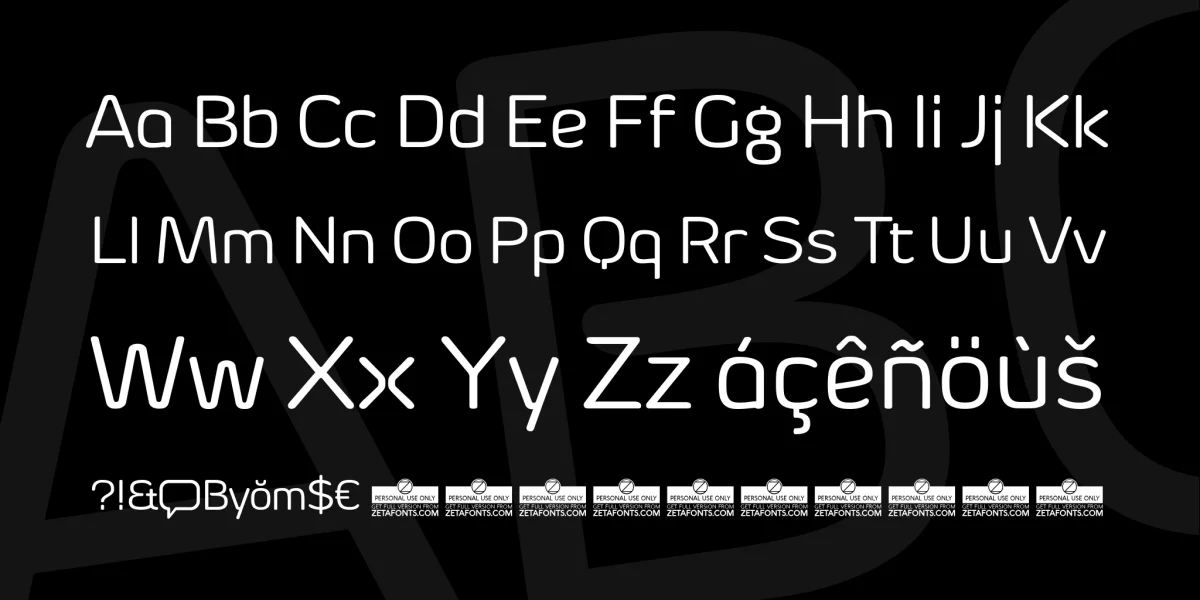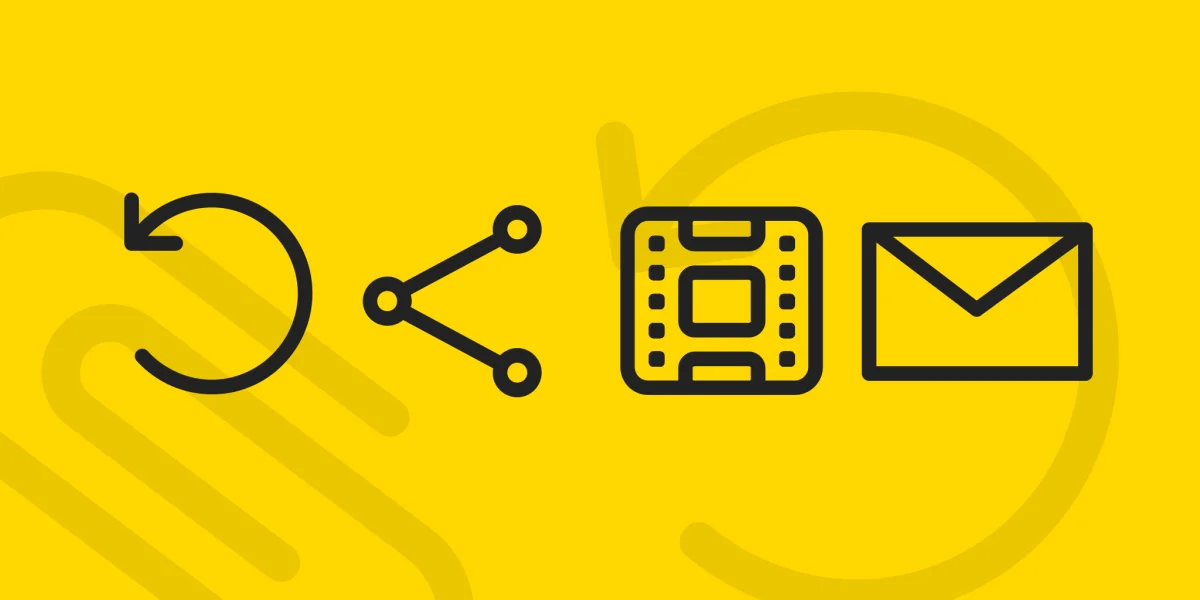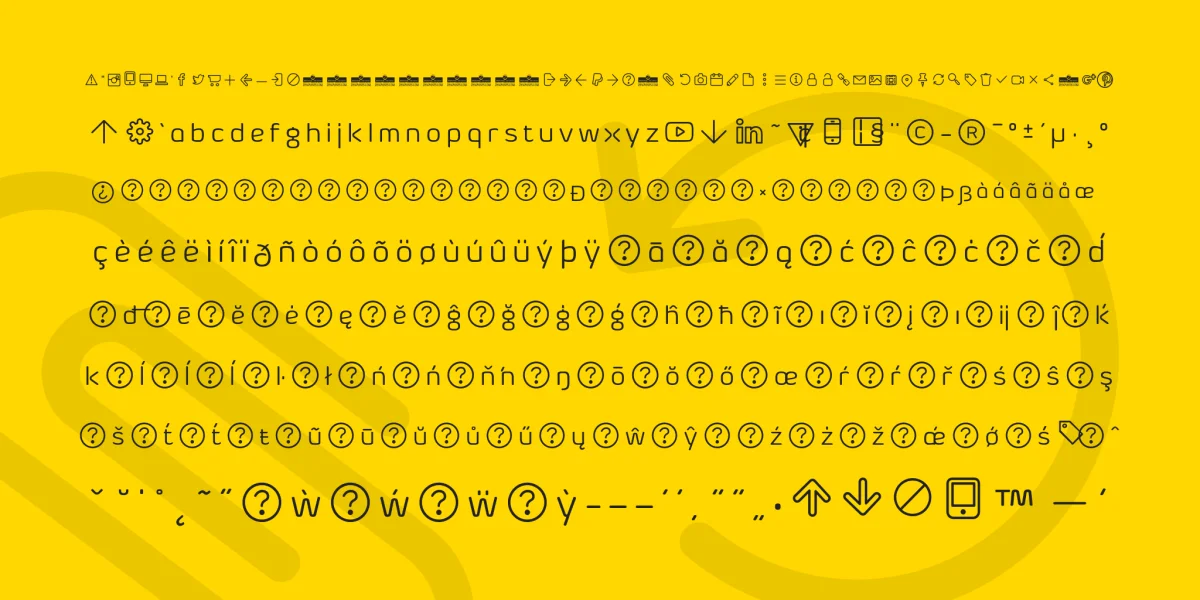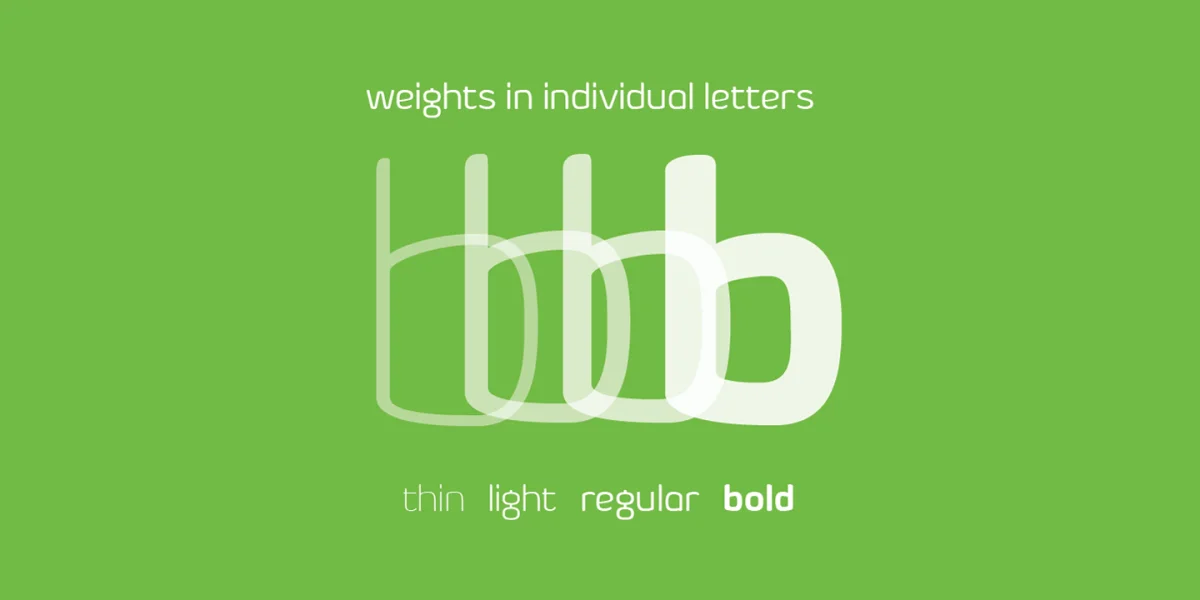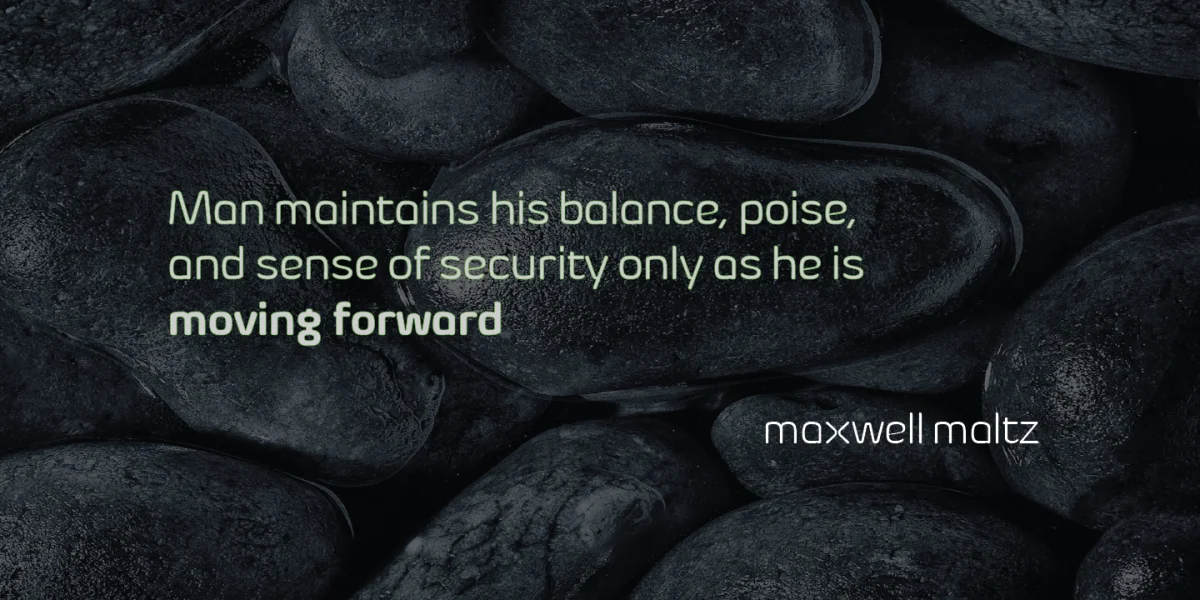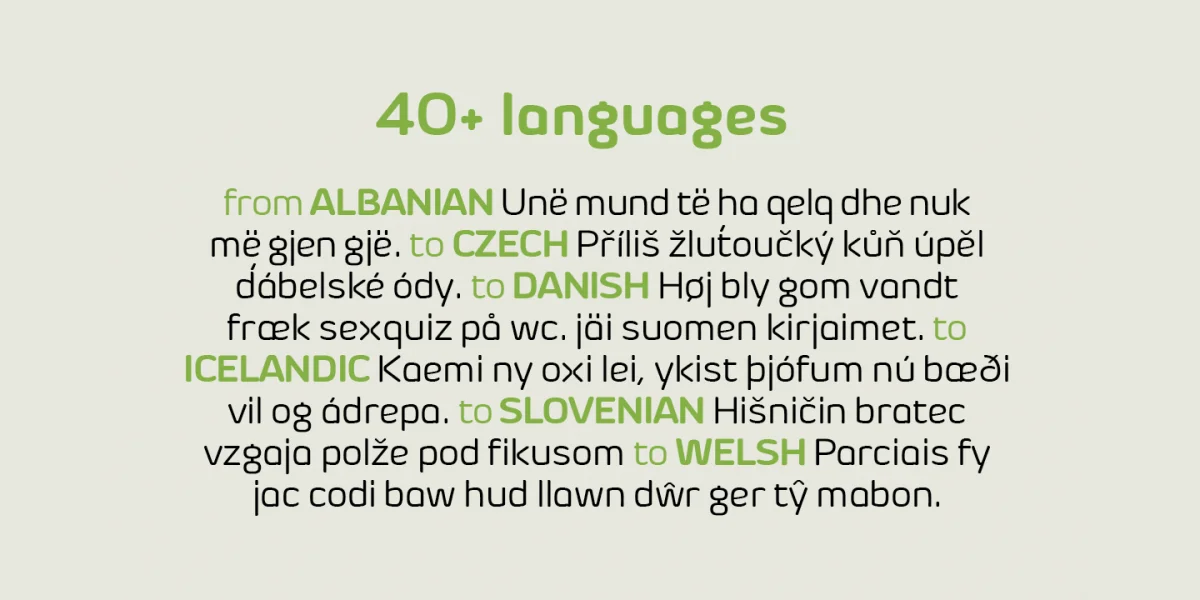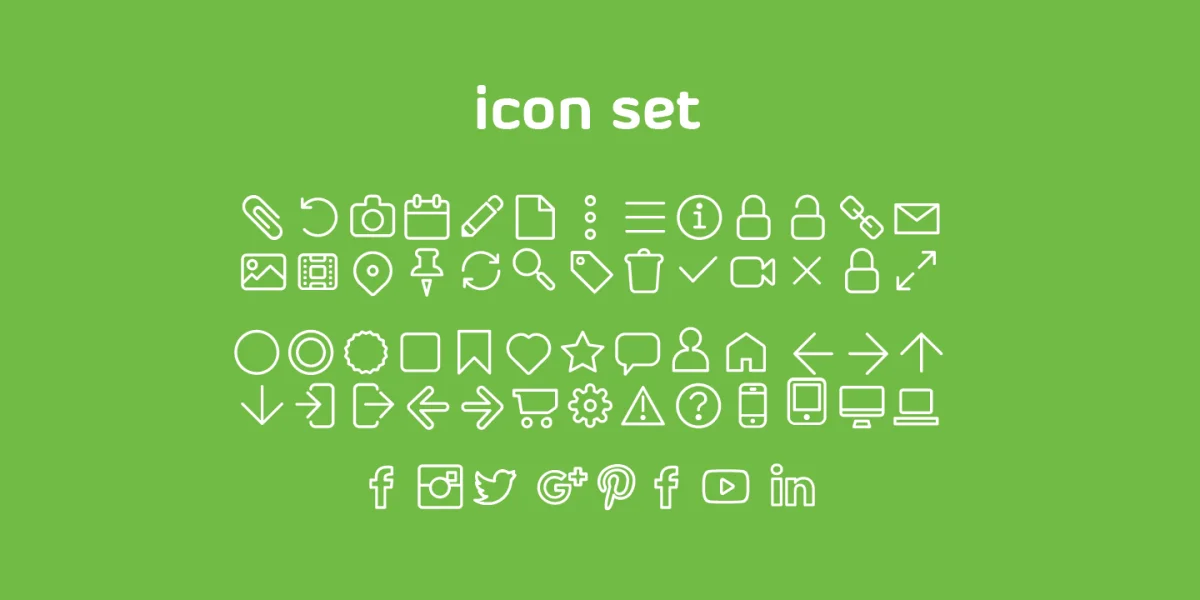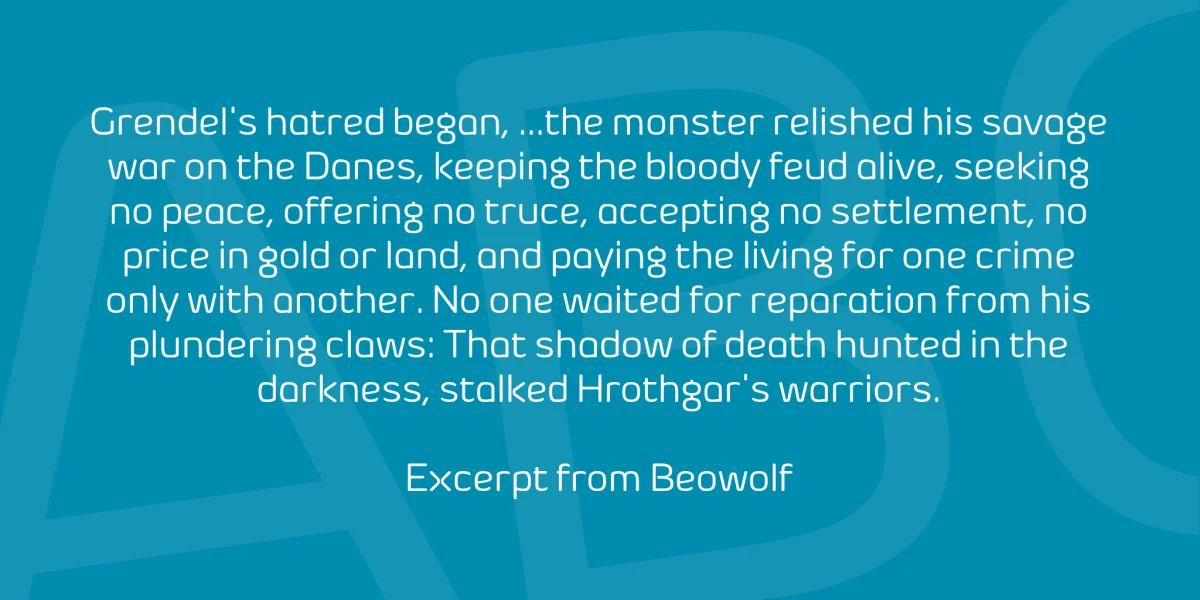
Designed by Francesco Canovaro, Byŏm is a contemporary sans serif typeface family based on natural, round shapes that convey a strong statement of ease, and clarity. It strives to bring to web, app and print design an essential spirit of purity, transparency and natural balance.
Byŏm covers over 40 languages that use the Latin alphabet, with a full range of accents and diacritics; it comes in four weights and includes a custom designed icon set for pixel perfect screen visualization at 16 px base and multiples.